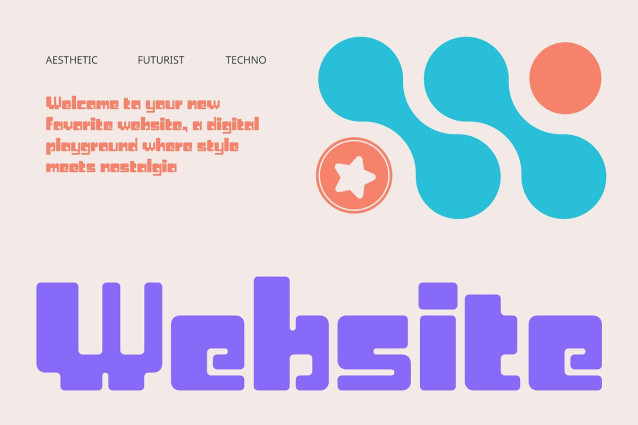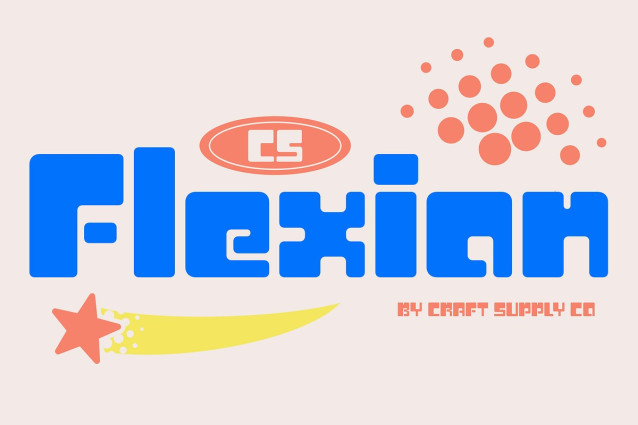
CS Flexion Font
CS Flexion Font is a vibrant display font inspired by the energetic, tech-loving aesthetics of the early 2000s. With bold letterforms, smooth curves, and funky styling, it captures the essence of the Y2K era—where retro-futuristic imagination meets digital optimism. Each glyph is designed to reflect the playful, colorful personality of the millennium shift.
Funky, Pop-Inspired Style True to the Y2K aesthetic, CS Flexion blends bubble-like forms, rounded geometry, and a splash of quirky attitude. Its cheerful and upbeat design brings a sense of motion and fun, echoing the era’s love for pop culture, vibrant fashion, and futuristic fantasy. This font is bold, expressive, and ready to take center stage in any visual.
Perfect for Fun, Nostalgic Designs Ideal for projects that aim to evoke retro joy and creative flair, CS Flexion fits seamlessly into posters, album covers, fashion lookbooks, merchandise, and branding. Whether you’re channeling early internet vibes or reimagining nostalgic trends with a modern twist, this font brings charisma and charm.
A Standout Choice for Bold Branding CS Flexion isn’t just a blast from the past—it’s a design tool that bridges nostalgia and innovation. Use it to energize your visuals and make a statement in playful, futuristic, or trend-forward contexts.